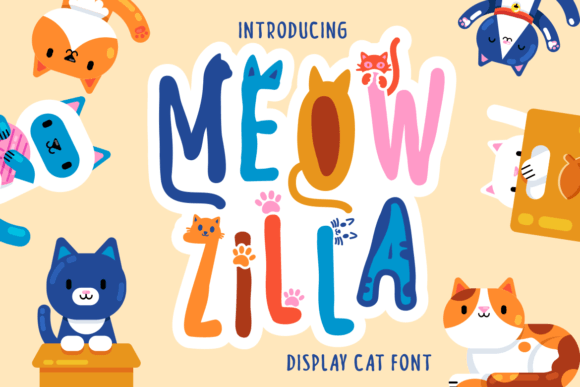
Introducing Meow Zilla: The Playful Display Font That Brings Fun and Whimsy to Your Designs
Are you looking for a font that can add a touch of playfulness and charm to your designs? Look no further than Meow Zilla, a unique display font inspired by the whimsical world of cats and kittens. With its 10 distinct variations, Meow Zilla is the perfect choice for any project that requires a dash of fun and feline flair.
A Font that’s as Playful as a Kitten
Meow Zilla is a display font that is designed to capture the playful and carefree spirit of cats and kittens. Each stroke of the font embodies the essence of fun, making it an excellent choice for titles in children’s books, playful branding, and any design that requires a touch of whimsy.
10 Distinct Variations to Suit Your Design Needs
Meow Zilla comes in 10 distinct variations, each reflecting the delightful themes of paws, playful kittens, and more. This range of variations ensures that you can choose the perfect style to suit your design needs.
From bold and playful to elegant and refined, Meow Zilla’s variations offer a range of options for designers. Whether you’re creating a logo, branding initiative, or crafting project, Meow Zilla has a style that’s sure to impress.
Perfect for Children’s Themes and Crafting Projects
Meow Zilla is particularly well-suited for children’s themes and crafting projects. The font’s playful and whimsical design makes it an excellent choice for:
- Children’s book titles
- Crafting projects, such as DIY tutorials and patterns
- Invitations and party decorations
- Personalized stickers and labels
Meow Zilla’s charm and character are sure to delight kids and adults alike, making it an excellent choice for any project that requires a touch of fun and playfulness.
Adding a Touch of Feline Grace to Your Designs
Meow Zilla is more than just a playful font – it’s also a sophisticated design tool that can add a touch of feline grace to your designs. The font’s elegant lines and refined details make it suitable for:
- Logos and branding initiatives
- Packaging and product design
- Advertising and marketing materials
Whether you’re creating a high-end brand identity or a playful marketing campaign, Meow Zilla’s versatility and charm make it an excellent choice.
In conclusion, Meow Zilla is a unique and versatile display font that’s perfect for any project that requires a touch of fun and feline flair. With its 10 distinct variations, playful design, and technical compatibility, Meow Zilla is an excellent choice for designers and crafters alike.